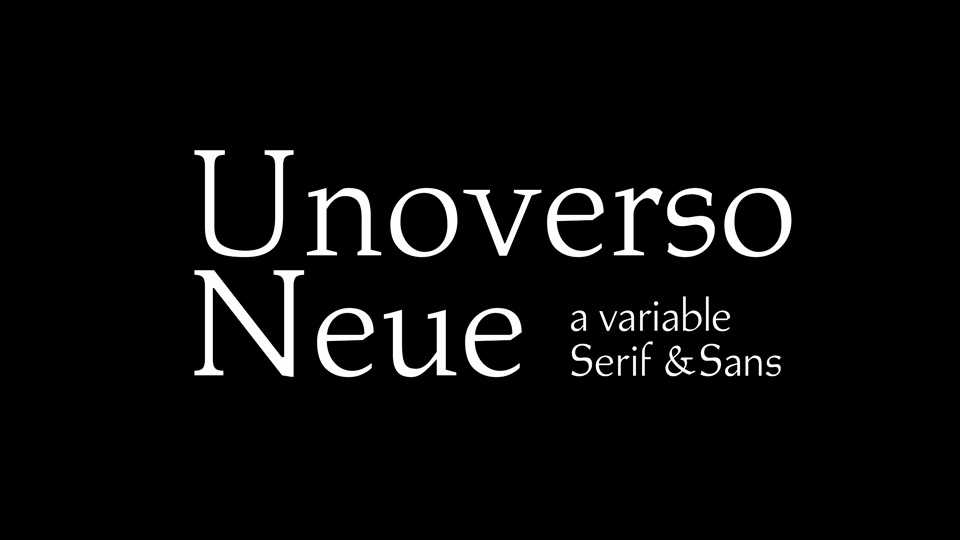
Download Unoverso Neue font, an old style variable typeface based on the Palatino by Hermann Zapf. Unoverso Neue with its high legibility works well for both text and display typography.
Designer: oxomoto